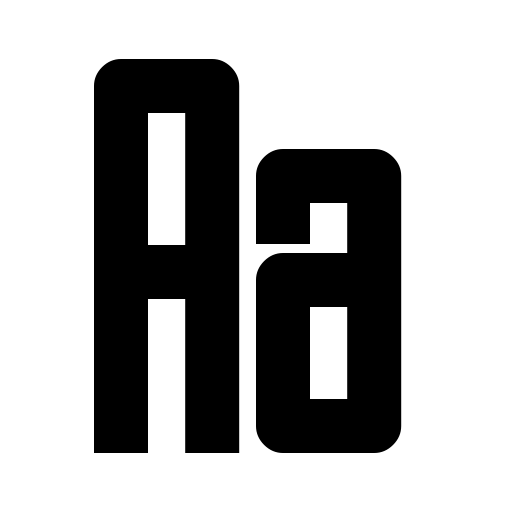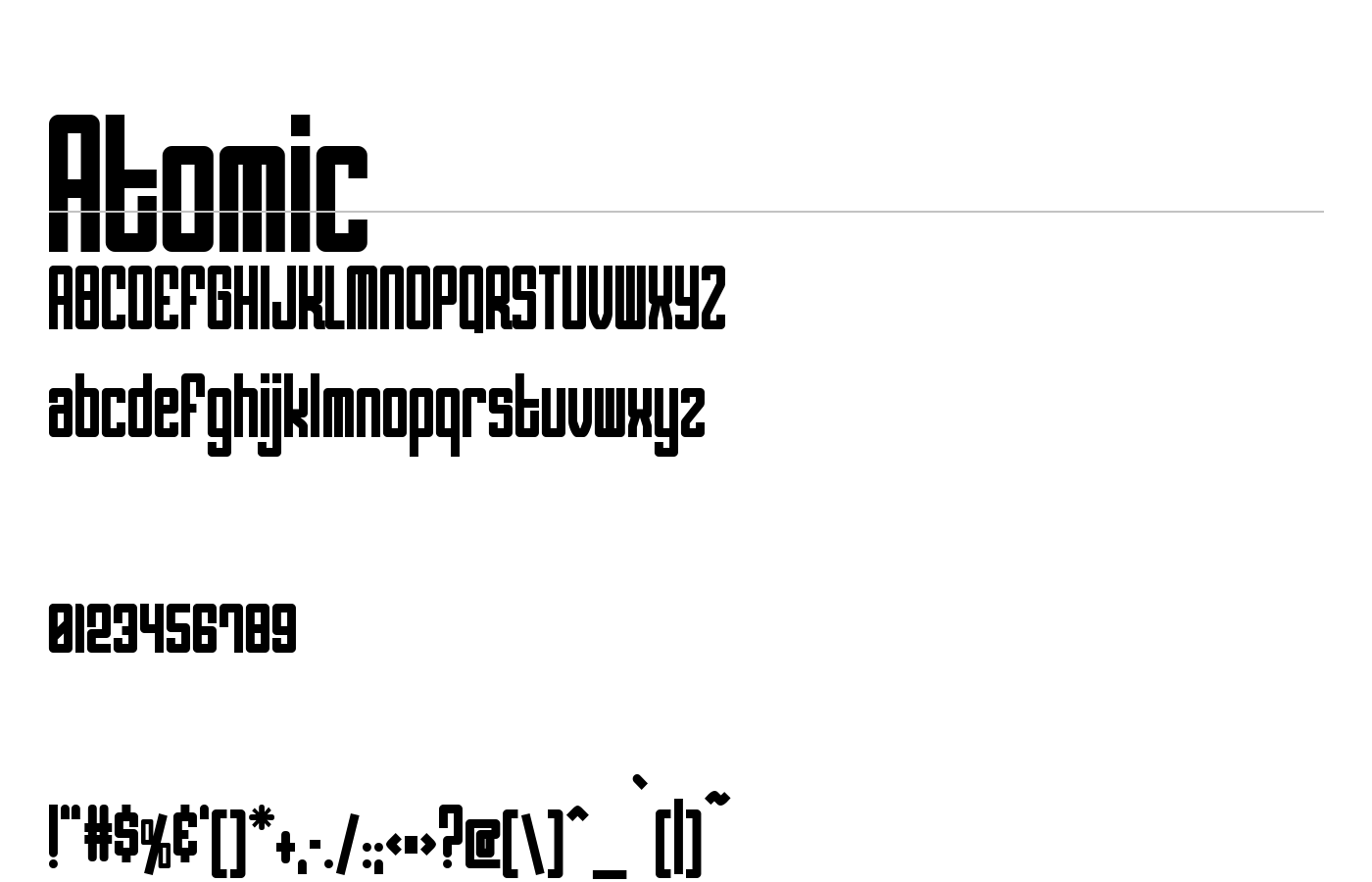
Atomic Font is a condensed, bold sans serif with a modern, geometric style characterized by tall, narrow letterforms and consistent stroke weight. Its clean, blocky shapes and uniform spacing give it a strong, futuristic feel ideal for striking headlines, logos, and branding that demand attention. This font works well where a contemporary, industrial look is desired, such as tech projects or editorial designs needing impactful, stylish typography.
Atomic Font